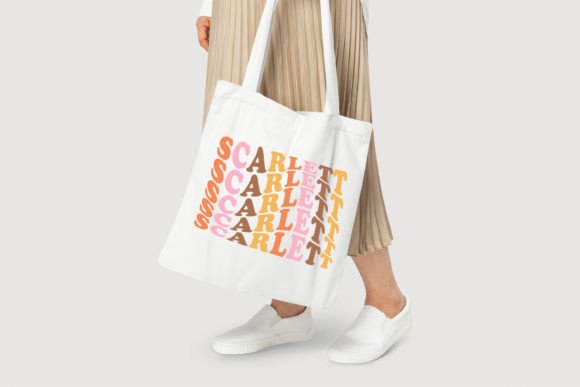
Wavytxt Font
Dive into a font revolution with WavyTxt! This innovative stacked font lets you ride the waves of creativity effortlessly. With 7 alternate glyphs for each letter, crafting wavy text has never been more exciting and accessible. Just choose your letter and adjust the alternates to see your text dance and sway in a sea of design possibilities. Whether you’re a graphic design enthusiast or a seasoned professional, WavyTxt adds a playful and dynamic dimension to your projects. Surf through the alphabet and let your text make waves – because sometimes, it’s all about riding the creative tide!